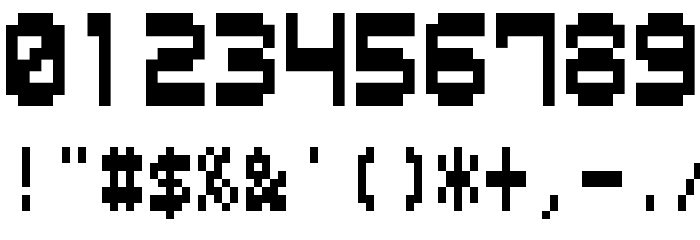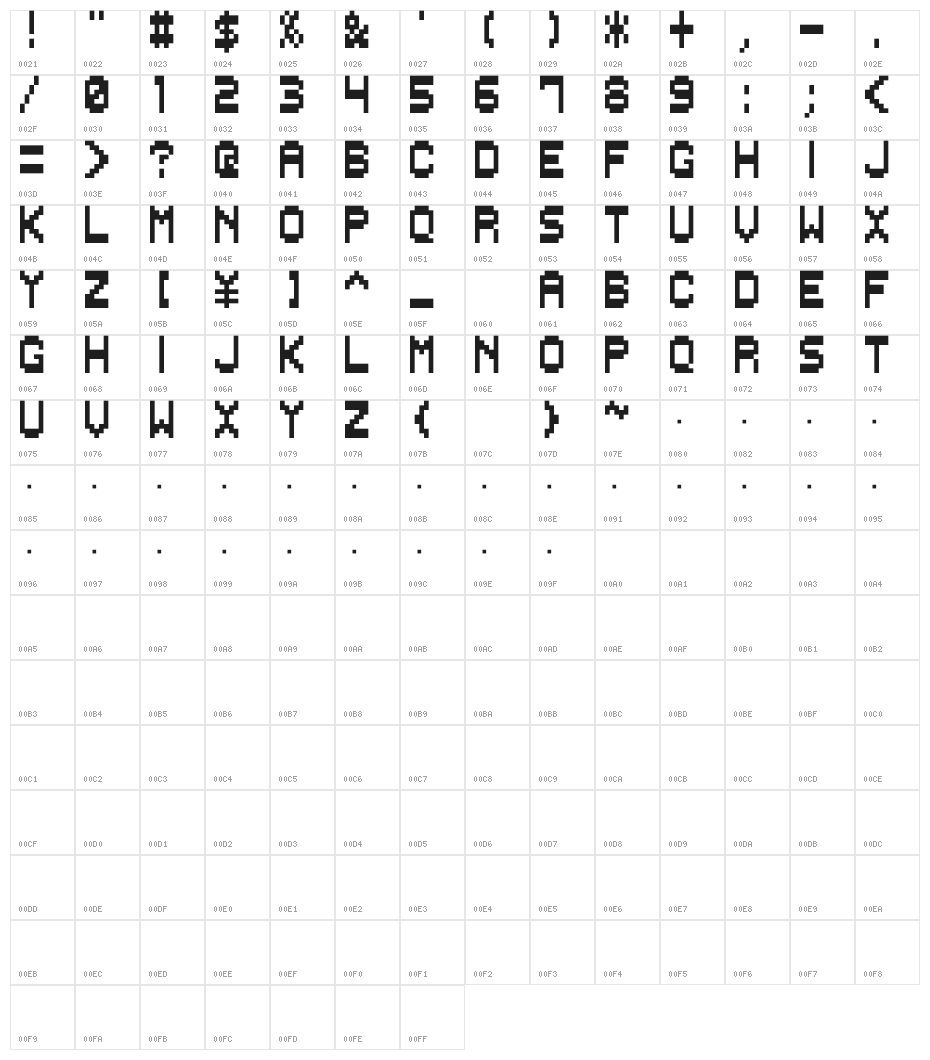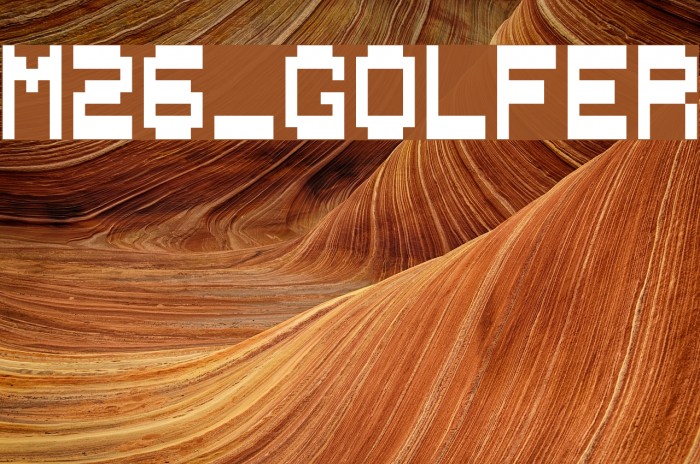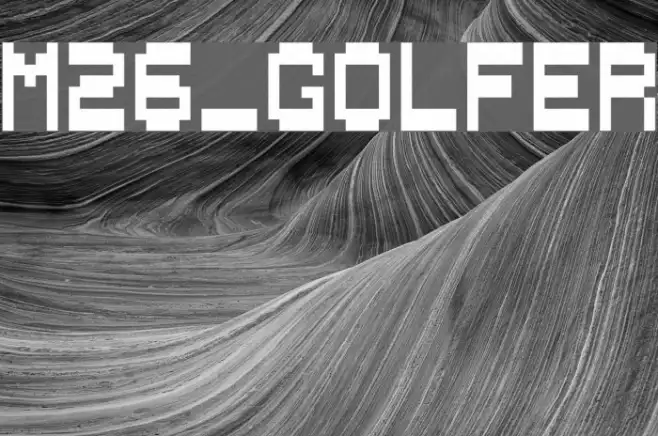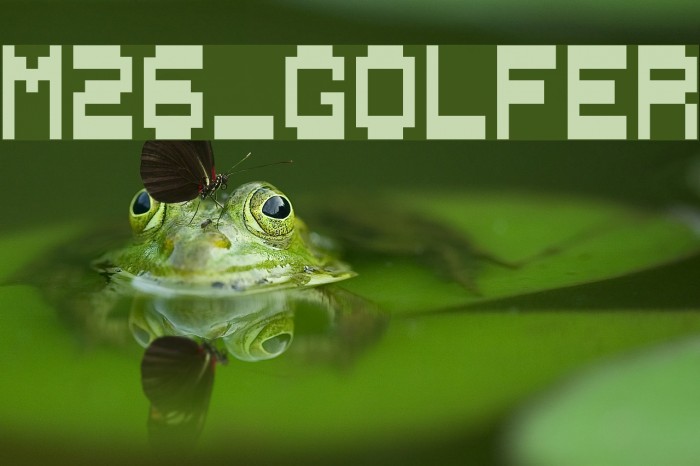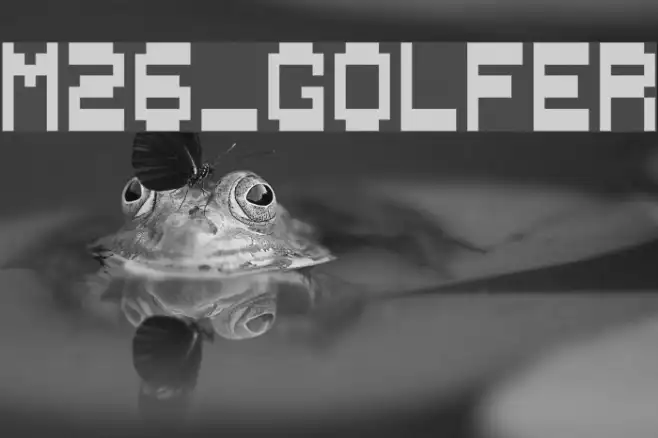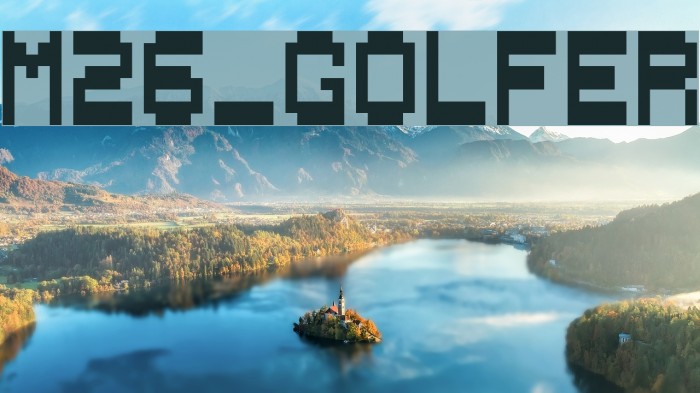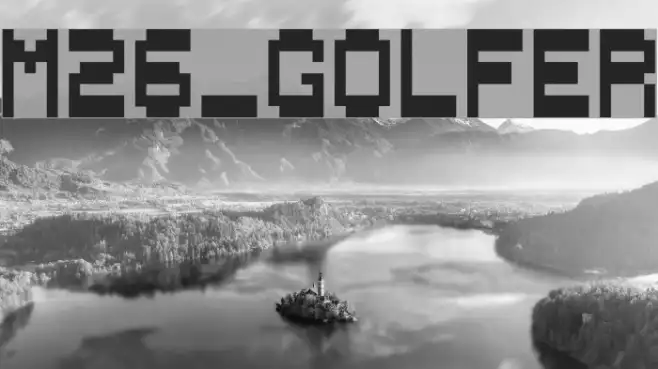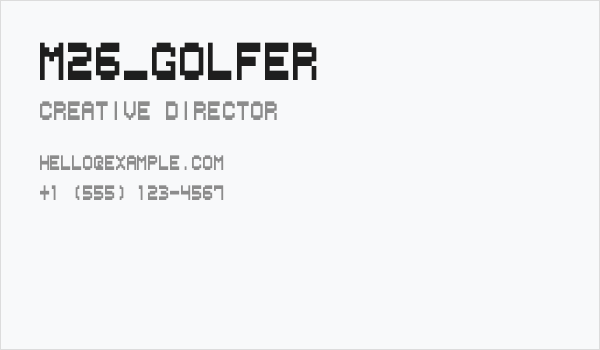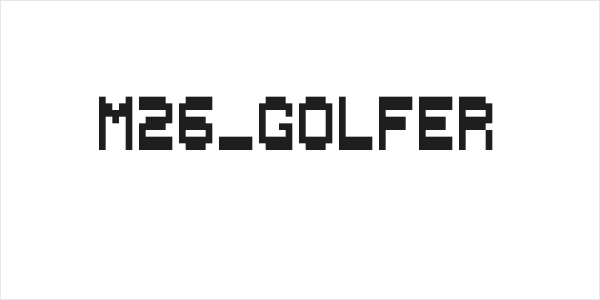
M26_GOLFER Font
M26_GOLFER Description
This font features a bold, pixelated design reminiscent of early digital displays and video games. Each character is constructed with a blocky, grid-like appearance, giving it a retro and technological feel. The uppercase and lowercase letters maintain a consistent height, with the lowercase slightly smaller, enhancing readability while preserving the distinct pixel style. Numbers and special characters follow the same design principles, ensuring uniformity across all glyphs. The font's geometric structure makes it ideal for projects that require a vintage digital aesthetic.